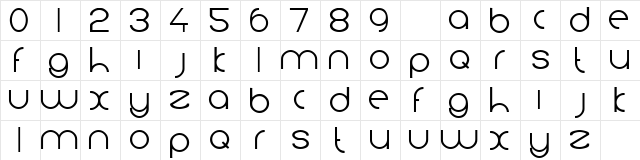
koeschaap Regular
Design Context for koeschaap Typeface
koeschaap offers clean, dependable letterforms without strong stylistic allegiance, making it a practical choice for designers who need flexibility.